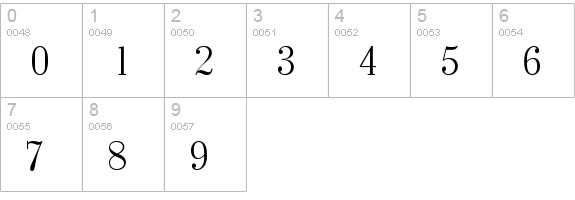
Wichita-Light is a refined, elegant variant in the Wichita typeface family \xE2\x80\x94 well suited to elegant body text, refined sub-headings, and luxury branding.
Introducing Wichita-Light, a captivating and versatile font that is sure to make a lasting impression. This font exudes elegance and sophistication, with its delicate strokes and graceful curves. Every character is meticulously crafted to showcase its unique personality, making it perfect for a wide range of design projects. Wichita-Light is not only visually stunning, but it also offers a seamless reading experience. Its clear and legible letterforms ensure that your message is effectively communicated, whether it's for a logo, branding, or any other creative endeavor. One of the best aspects of Wichita-Light is that it is freely available to download at FontsMarket.com. Yes, you read that right - this incredible font can be yours without any cost. You can easily access it and incorporate it into your designs to elevate them to a whole new level of excellence. Whether you're a professional designer or someone who simply appreciates the beauty of typography, Wichita-Light is a must-have addition to your font collection. Its versatility allows it to shine in a variety of contexts, from printed materials to digital platforms. Don't miss out on the opportunity to enhance your creativity with this stunning font. Download Wichita-Light from FontsMarket.com and let your imagination run wild. Embrace the power of free and experience the transformative impact that this font can have on your designs.